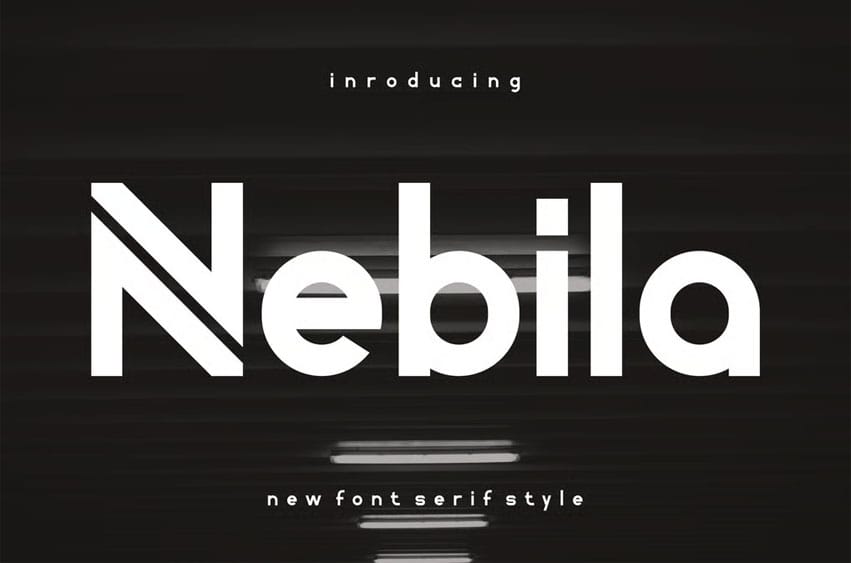
Nebila Font Display Font Logo is an awesome and authentic display font. It fits in headlines, logos, posters, flyers, invitations, name cards, branding materials, print media, editorial layouts, and many more.